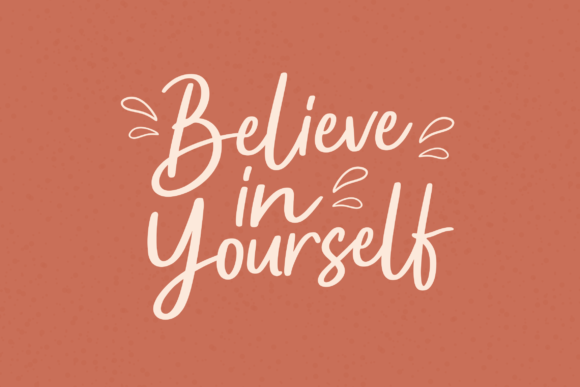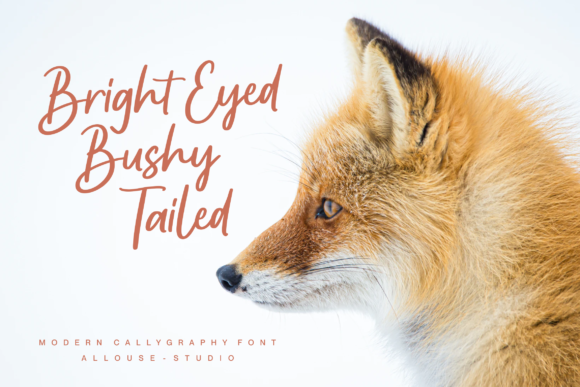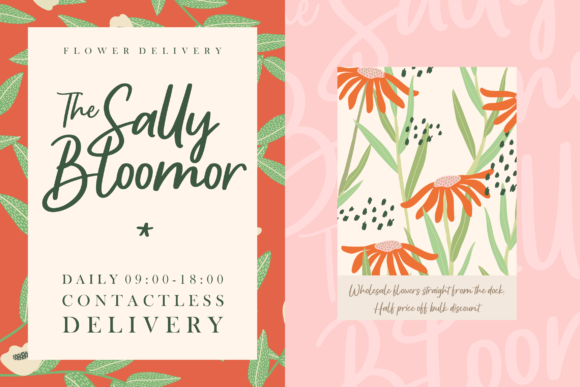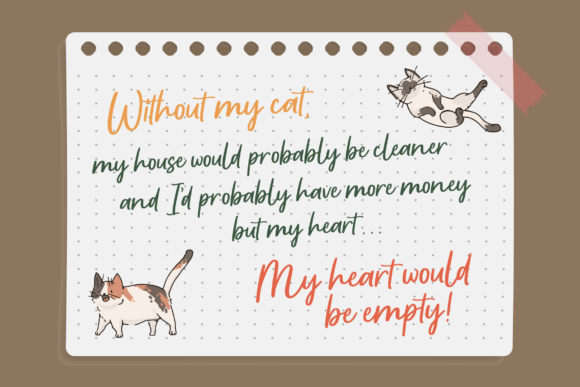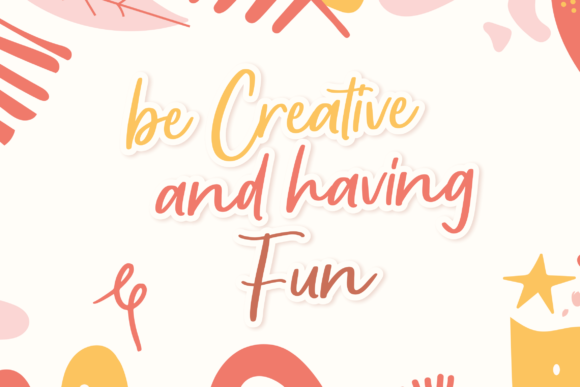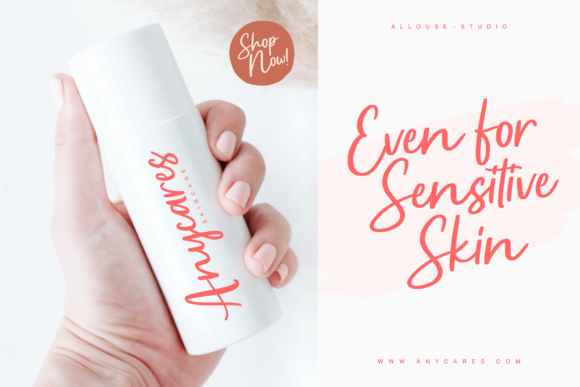
Introducing Apricotsy Font: The Playful Script Font to Elevate Your Creative Projects
Are you tired of using the same old fonts in your creative projects? Do you want to add a touch of whimsy and playfulness to your designs? Look no further than Apricotsy Font, a lovely script font that features charming, dancing characters that are sure to make your projects stand out.
What is Apricotsy Font?
Apricotsy Font is a beautiful script font that is perfect for designers, crafters, and anyone looking to add a personal touch to their creative projects. This font features playful, cursive characters that seem to dance along the baseline, giving it a lively and energetic feel. With its unique and charming design, Apricotsy Font is sure to add a touch of magic to any project.
Key Features of Apricotsy Font
So, what makes Apricotsy Font so special? Here are just a few of its key features:
• Playful Characters: Apricotsy Font features charming, playful characters that seem to dance along the baseline. Each letter is carefully designed to be unique and fun, making it perfect for creative projects.
• Script Font: Apricotsy Font is a script font, which means it’s perfect for adding a personal touch to your designs. Whether you’re creating invitations, greeting cards, or social media graphics, Apricotsy Font is sure to add a touch of elegance and sophistication.
• Unique Design: Apricotsy Font has a unique design that’s sure to make your projects stand out. Its dancing characters and playful feel make it perfect for creative projects that need a little extra something special.
How to Use Apricotsy Font in Your Creative Projects
Apricotsy Font is perfect for a wide range of creative projects, including:
• Invitations: Add a touch of whimsy and playfulness to your invitations with Apricotsy Font. Perfect for baby showers, birthday parties, and weddings.
• Greeting Cards: Create beautiful, one-of-a-kind greeting cards with Apricotsy Font. Perfect for holidays, birthdays, and special occasions.
• Social Media Graphics: Add a personal touch to your social media graphics with Apricotsy Font. Perfect for creating engaging and shareable content.
• Branding: Use Apricotsy Font to create a unique and memorable brand identity. Perfect for businesses, bloggers, and entrepreneurs.
Tips for Getting the Most Out of Apricotsy Font
Here are a few tips for getting the most out of Apricotsy Font:
• Experiment with Colors: Apricotsy Font looks great in a variety of colors, so don’t be afraid to experiment and find the perfect hue for your project.
• Mix and Match: Try pairing Apricotsy Font with other fonts to create a unique and interesting look.
• Play with Size: Apricotsy Font looks great in a variety of sizes, so don’t be afraid to experiment and find the perfect size for your project.
Apricotsy Font is a beautiful, playful script font that’s perfect for designers, crafters, and anyone looking to add a personal touch to their creative projects. With its unique and charming design, Apricotsy Font is sure to make your projects stand out. So why wait? Download Apricotsy Font today and start adding a touch of magic to your creative projects!
Whether you’re a seasoned designer or just starting out, Apricotsy Font is a great addition to your font library. Its playful characters and unique design make it perfect for a wide range of creative projects. So go ahead, get creative, and see what amazing things you can do with Apricotsy Font!